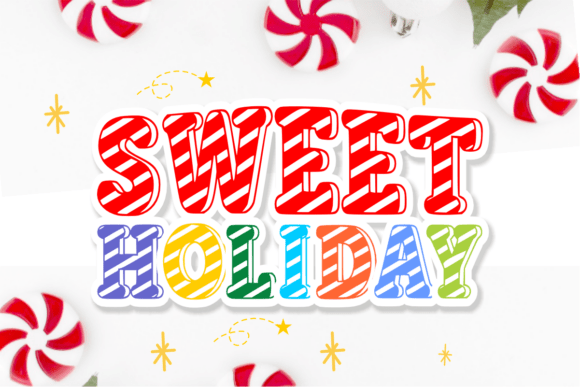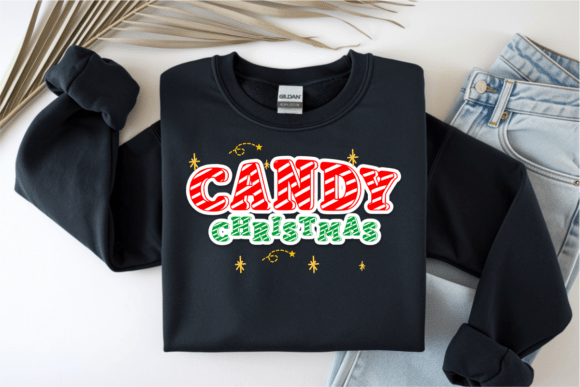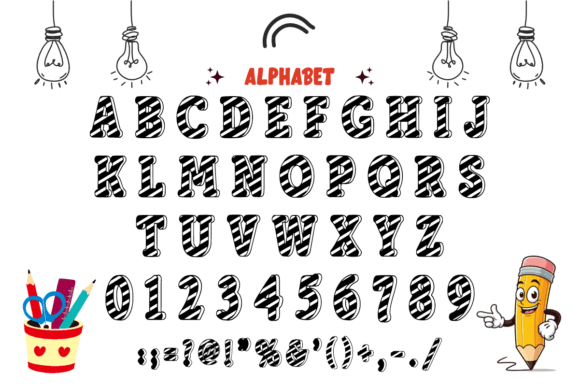
The Sweetest Font for Your Holiday Designs: Meet Candy Christmas
It’s that time of the year again – the season for twinkling lights, cozy sweaters, and designs that scream festive cheer. I still remember the year I was tasked with creating a Christmas card for a client’s family reunion. I spent hours scouring font libraries, searching for the perfect blend of whimsy and sophistication. That’s when I stumbled upon “Candy Christmas,” a delightful, all-uppercase font that instantly captured the holiday spirit. In this article, I’ll share my experience with this enchanting font, its features, and how you can make the most of it in your designs.
An Honest Review of Candy Christmas
- ✨ Unique and eye-catching design that’s sure to make your projects stand out
- ✅ Exclusively in uppercase letters, giving it a bold and festive feel
- 🎉 Versatile and adaptable to various design projects, from holiday cards to party invitations
- 💻 Works beautifully in both digital and print formats
While Candy Christmas is an amazing font, there are a few things to keep in mind:
- ⚠️ As an all-uppercase font, it may not be the best choice for body text or projects requiring extensive reading
- 🤔 Limited character set, which might limit its use in certain projects
- Experiment with OpenType features, such as glyphs and stylistic alternates, to add more personality to your text
The Story Behind Candy Christmas
Candy Christmas was designed with the intention of capturing the whimsical, magical essence of the holiday season. The designer aimed to create a font that would evoke the feeling of walking through a festive market, surrounded by twinkling lights, sweet treats, and joyful carols. The result is a font that’s equal parts playful and sophisticated, perfect for a wide range of holiday projects.
Q: Does Candy Christmas support OpenType features?
A: Yes, Candy Christmas supports OpenType features, including glyphs and stylistic alternates, allowing you to customize your text and add more personality to your designs.